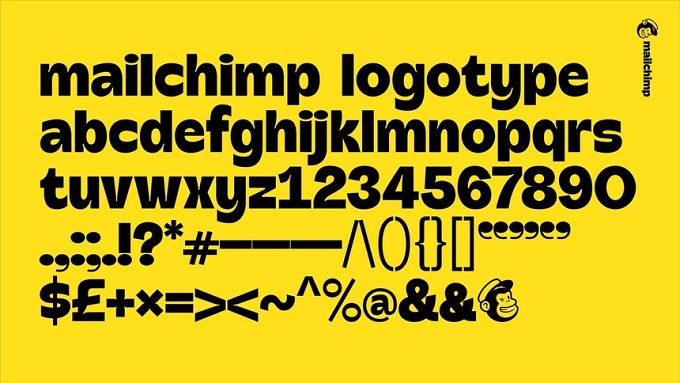
Mailchimp's logotype is a careful balance between the sophisticated and the surreal, an embodiment of the brand's ethos of growing up and staying weird. The beloved wordmark was transformed into a working typeface for sub-brands and hero moments, reinforcing Mailchimp's role as a beacon for customers and their growing brands.